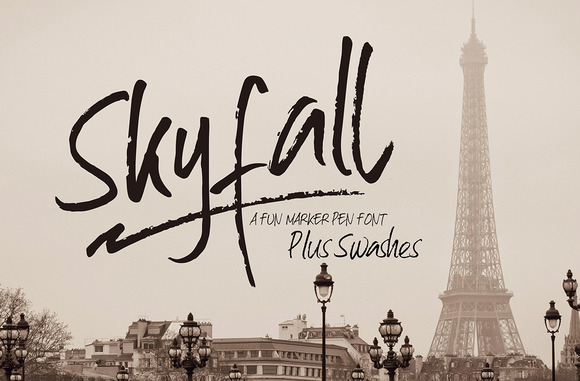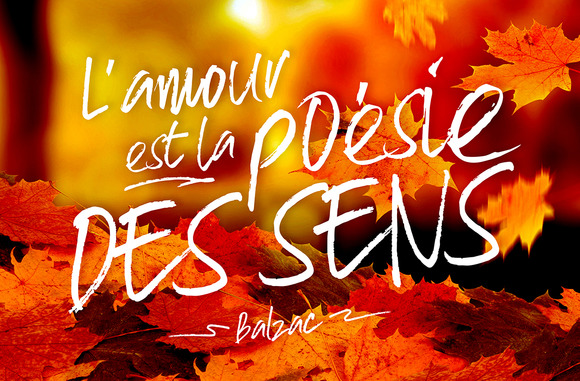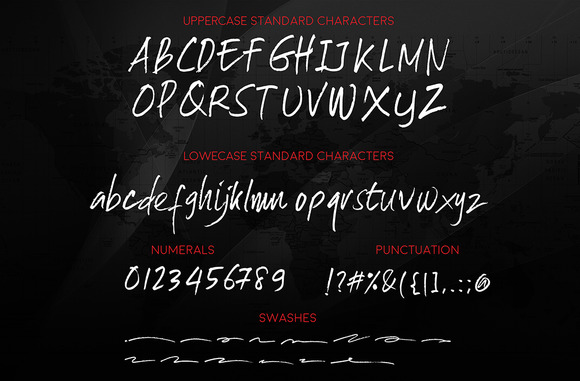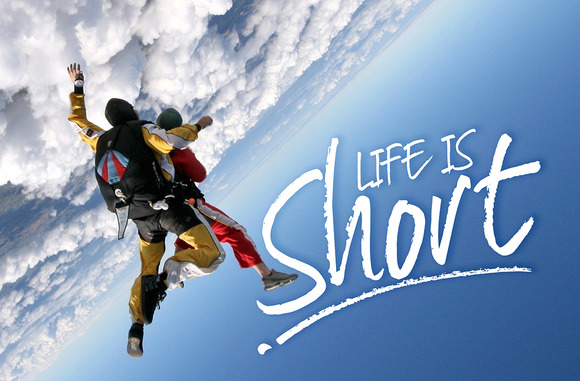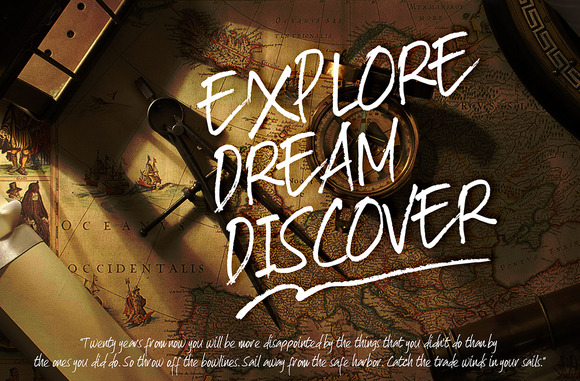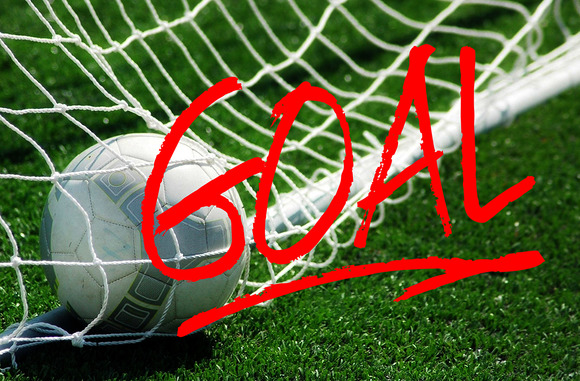
Skyfall Font
About Skyfall Font
The Skyfall font is a fun marker pen font. It is a bit quirky and versatile.
You don’t just get a font, it Includes hand-made swashes to help you along your way and boost your creativity. Comes with uppercase and lowercase characters, basic punctuation, numerals, and supports international languages.